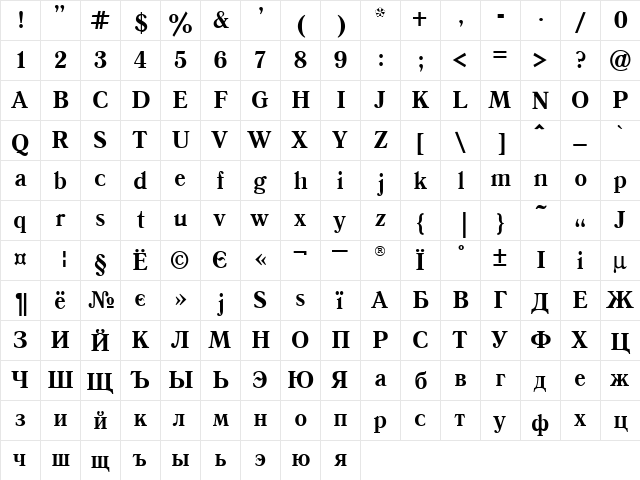
Kvant Bold
Design Context for Kvant Typeface
Kvant offers clean, dependable letterforms without strong stylistic allegiance, making it a practical choice for designers who need flexibility. The heavy weight commands attention and anchors typographic hierarchies.